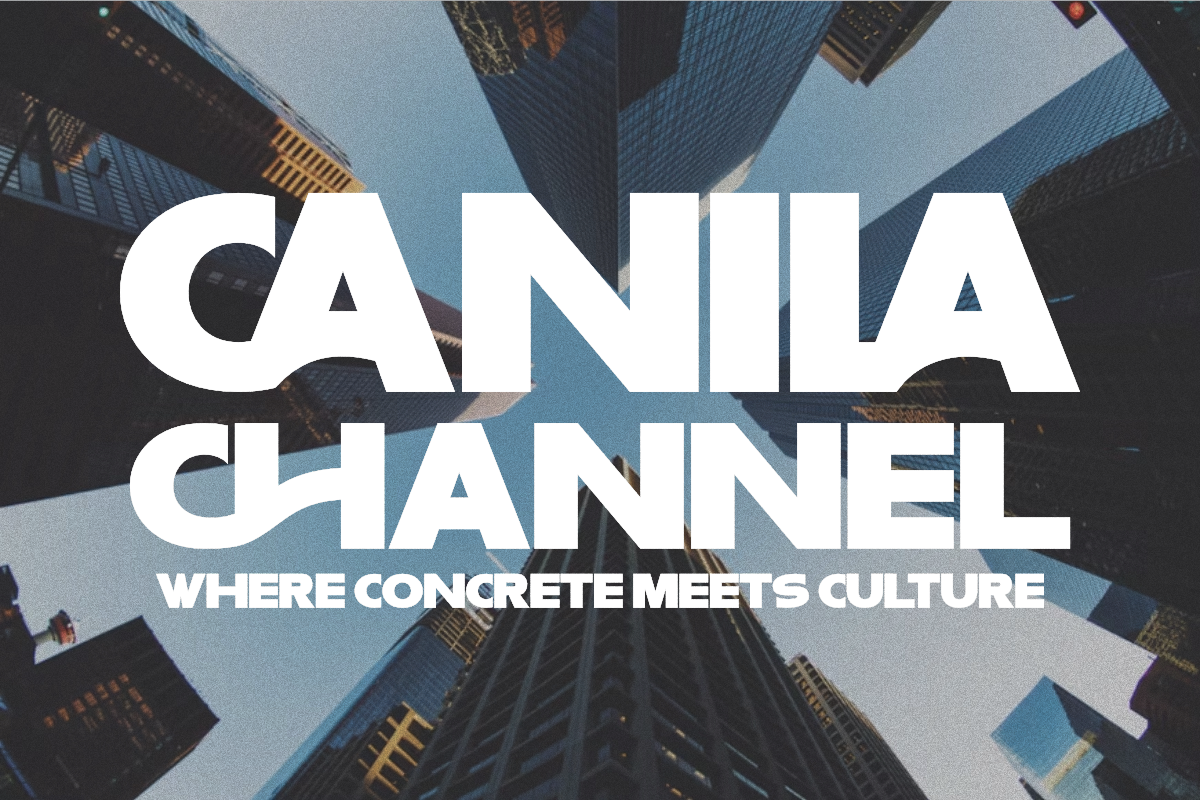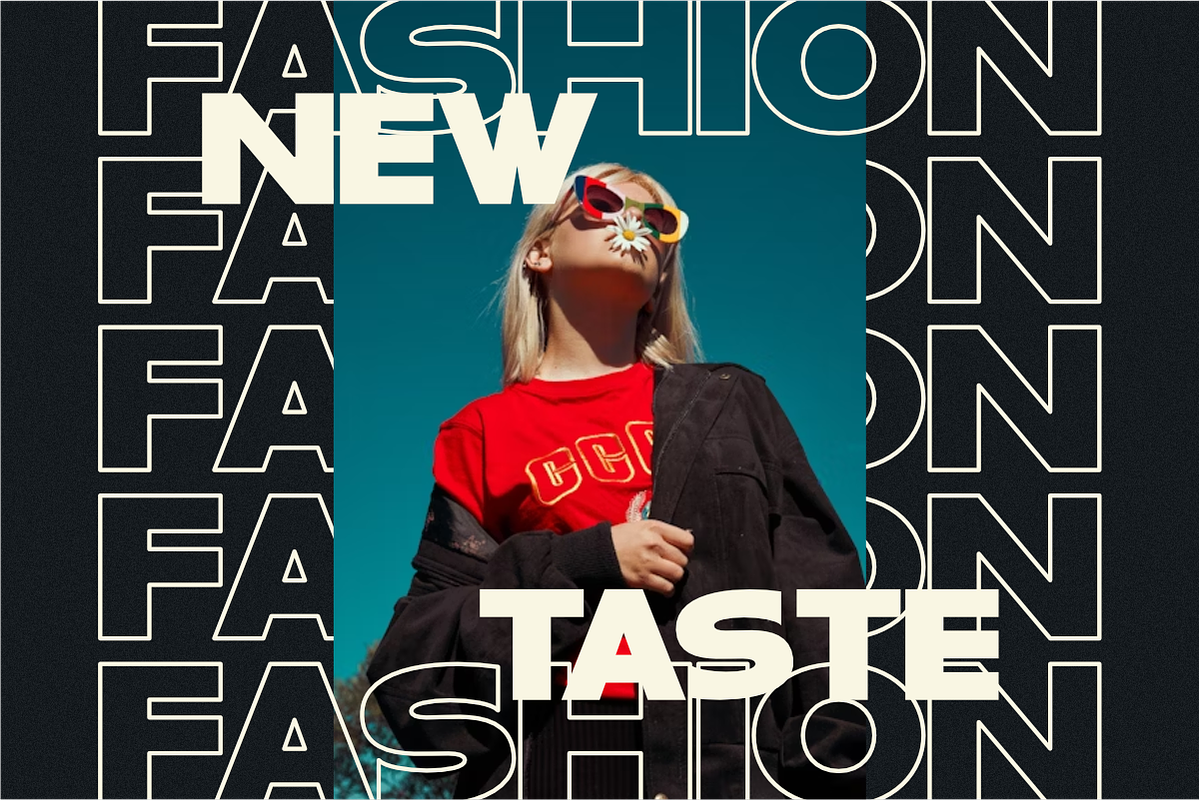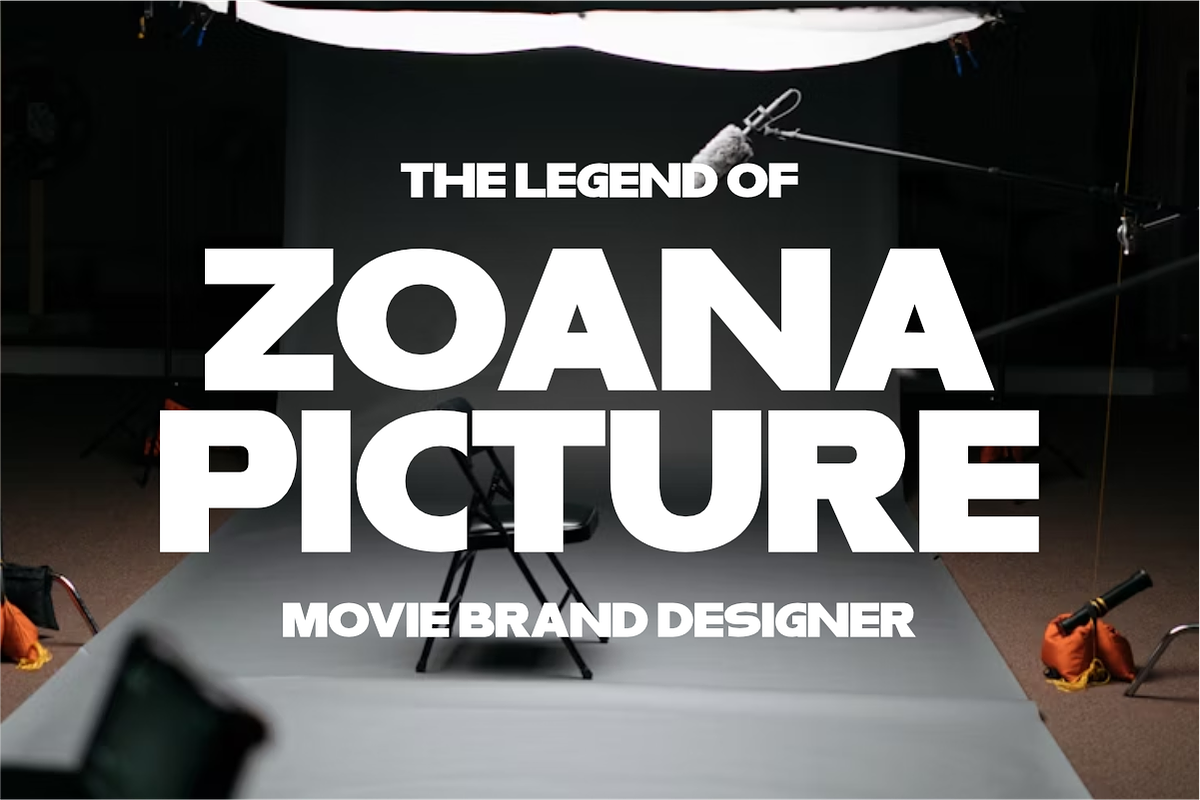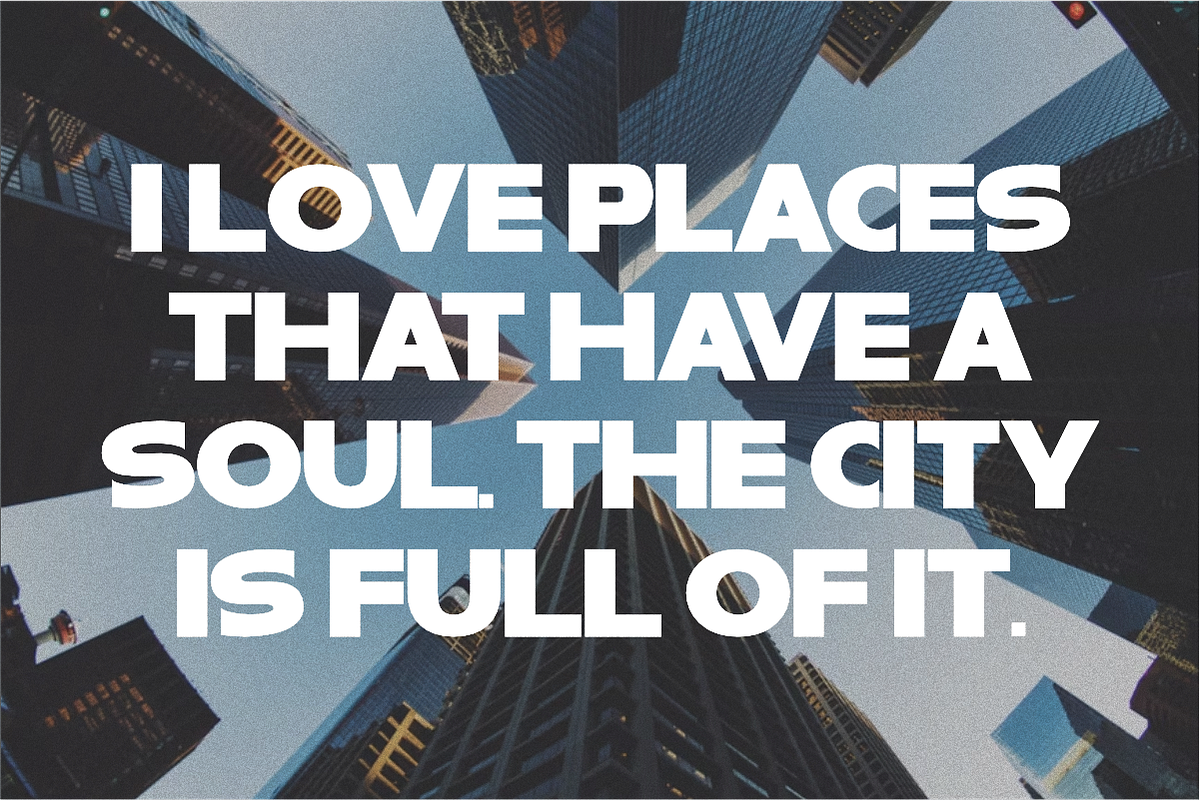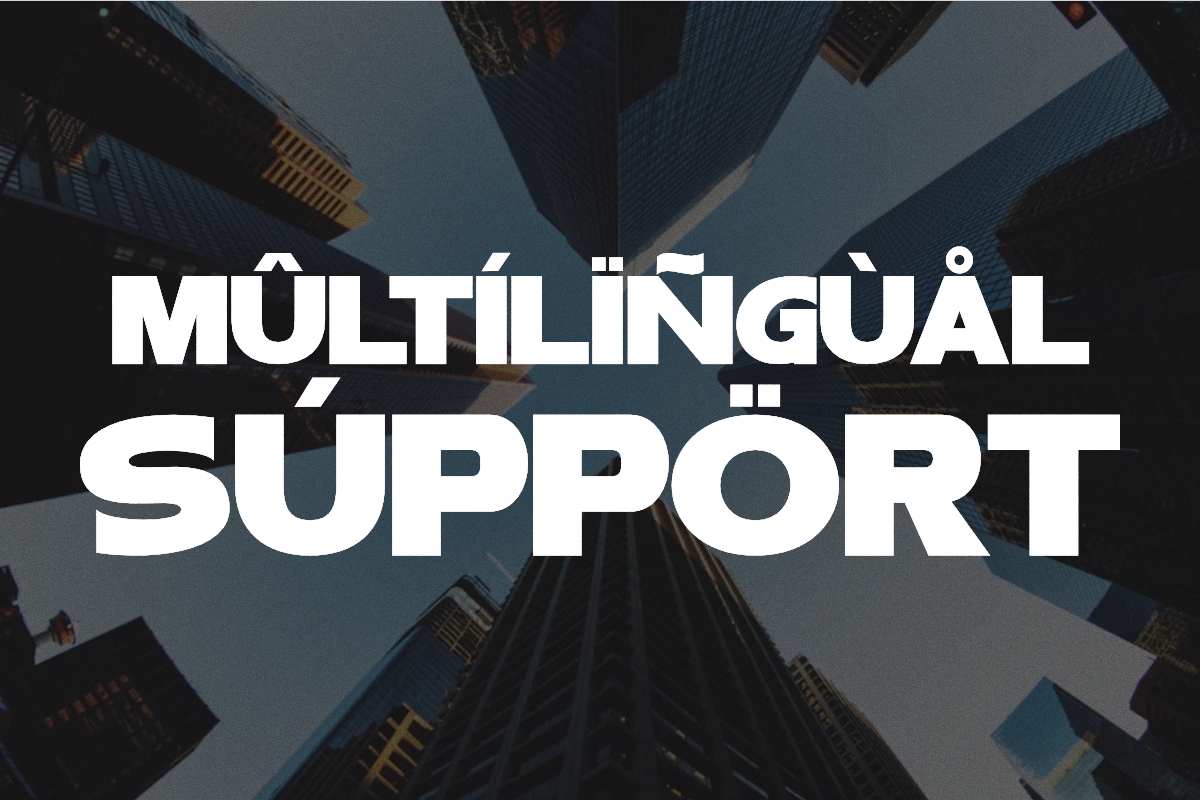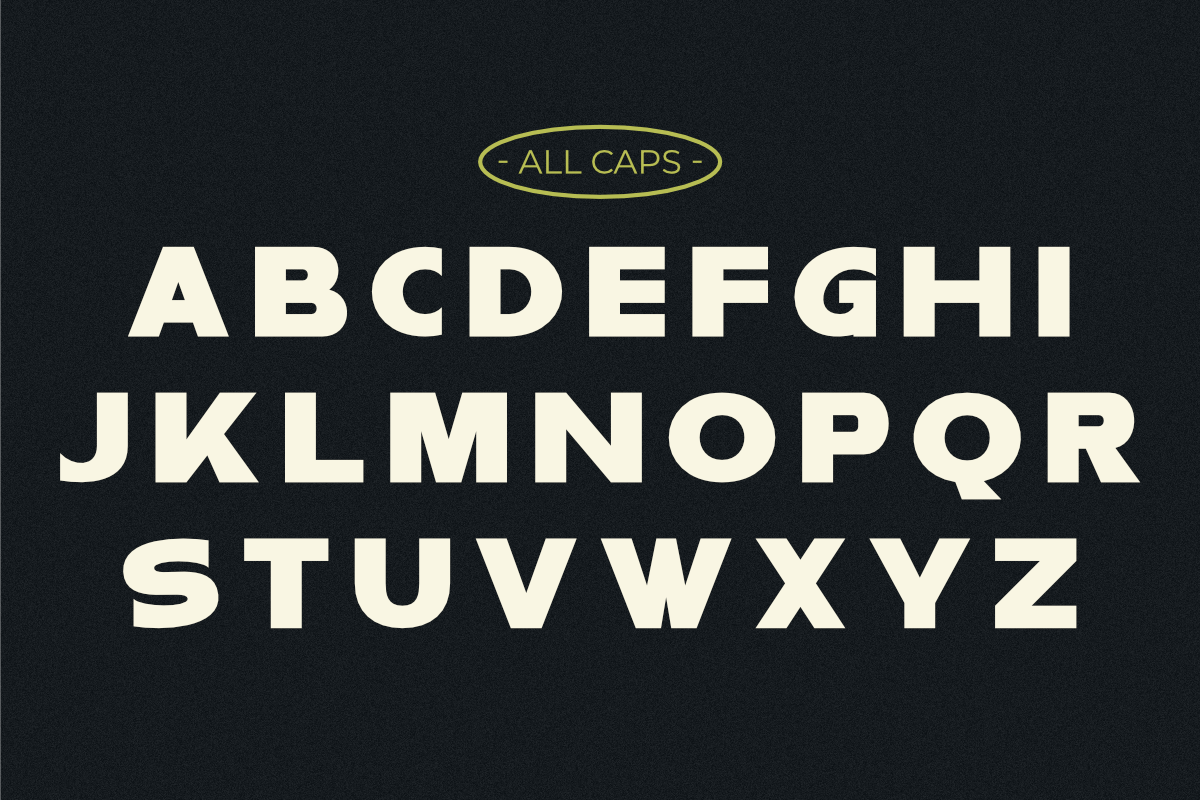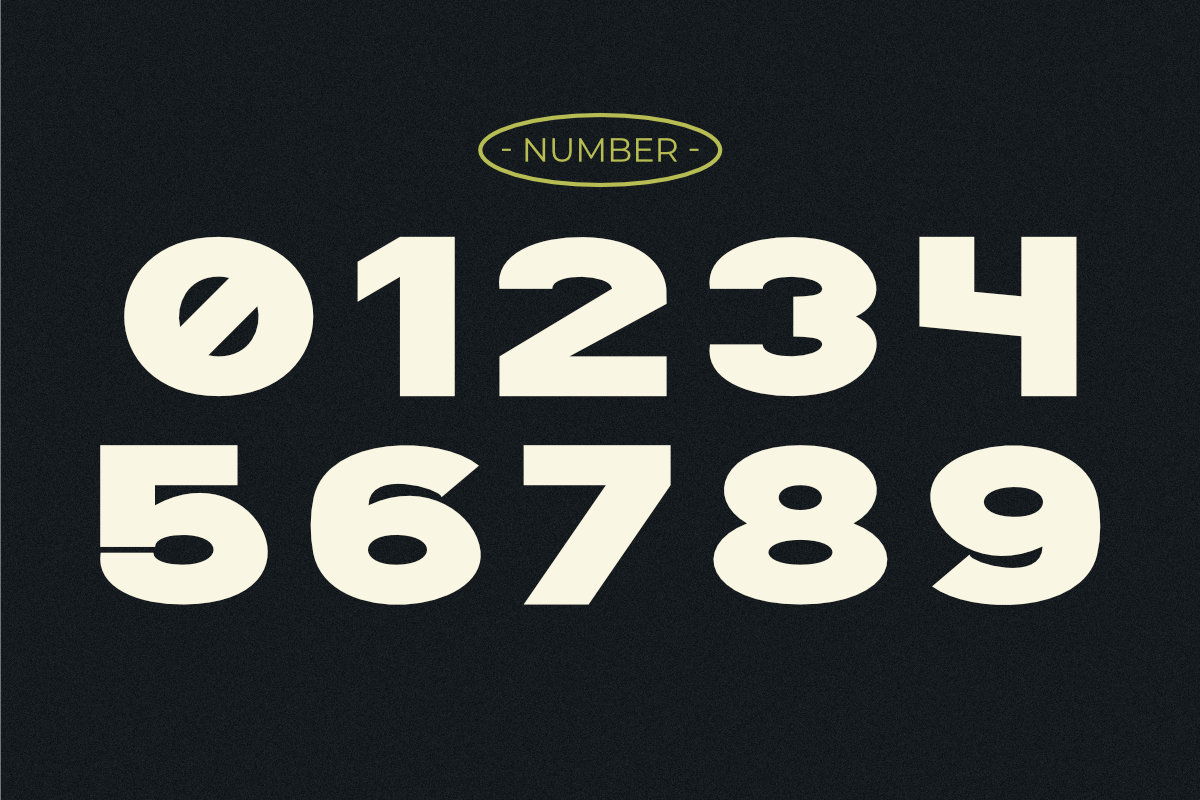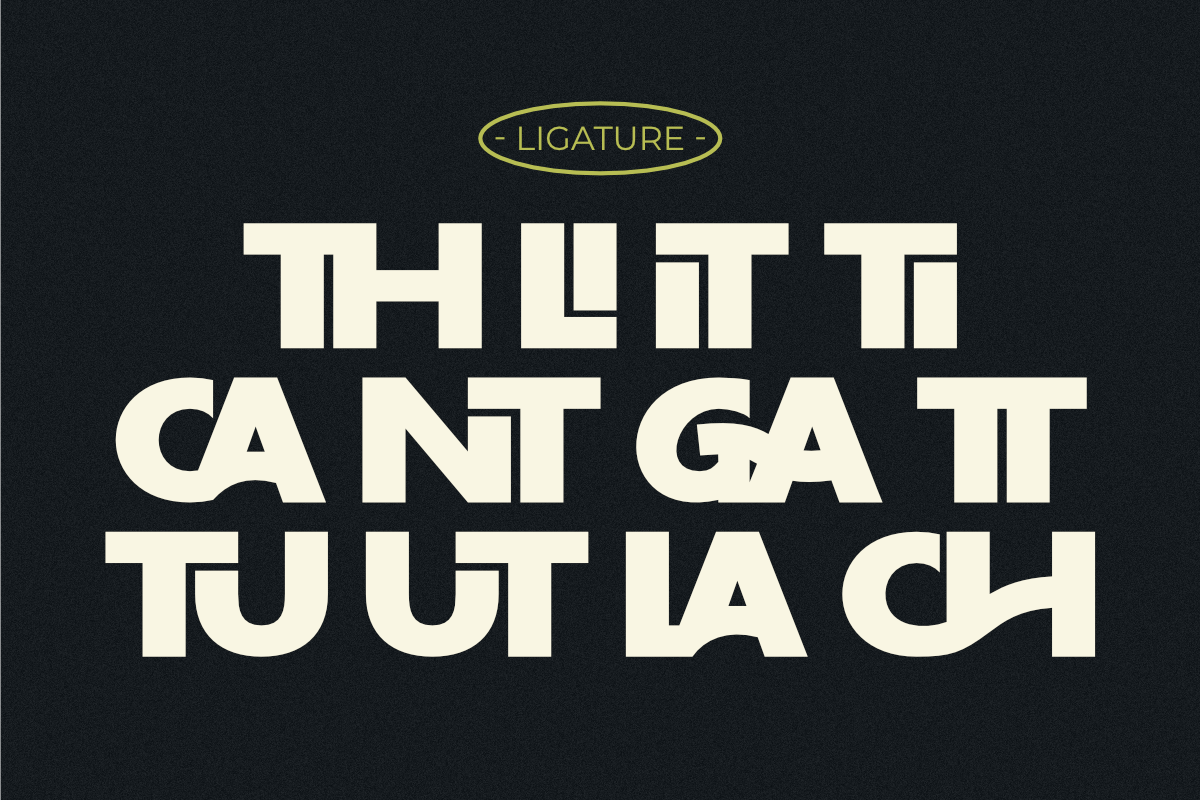
Thick - Ultra Condensed Sans Serif
Thick is an ultra-condensed sans serif typeface with a bold and modern aesthetic. Its clean, sharp lines and tightly spaced characters are designed to make a powerful statement. This display font is ideal for headlines, posters, branding, and logos where you need a strong, attention-grabbing presence. It's especially suited for projects with an urban, industrial, or minimalist theme, and its highly legible form ensures it stands out in any setting.